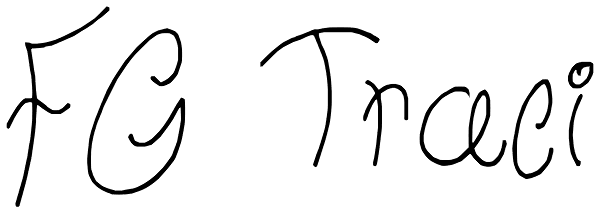
FG Traci
FG Traci is a two font family. One thin and graceful the other bold. This font is probably hard to use for block text, but very suitable for labels greeting cards etc.